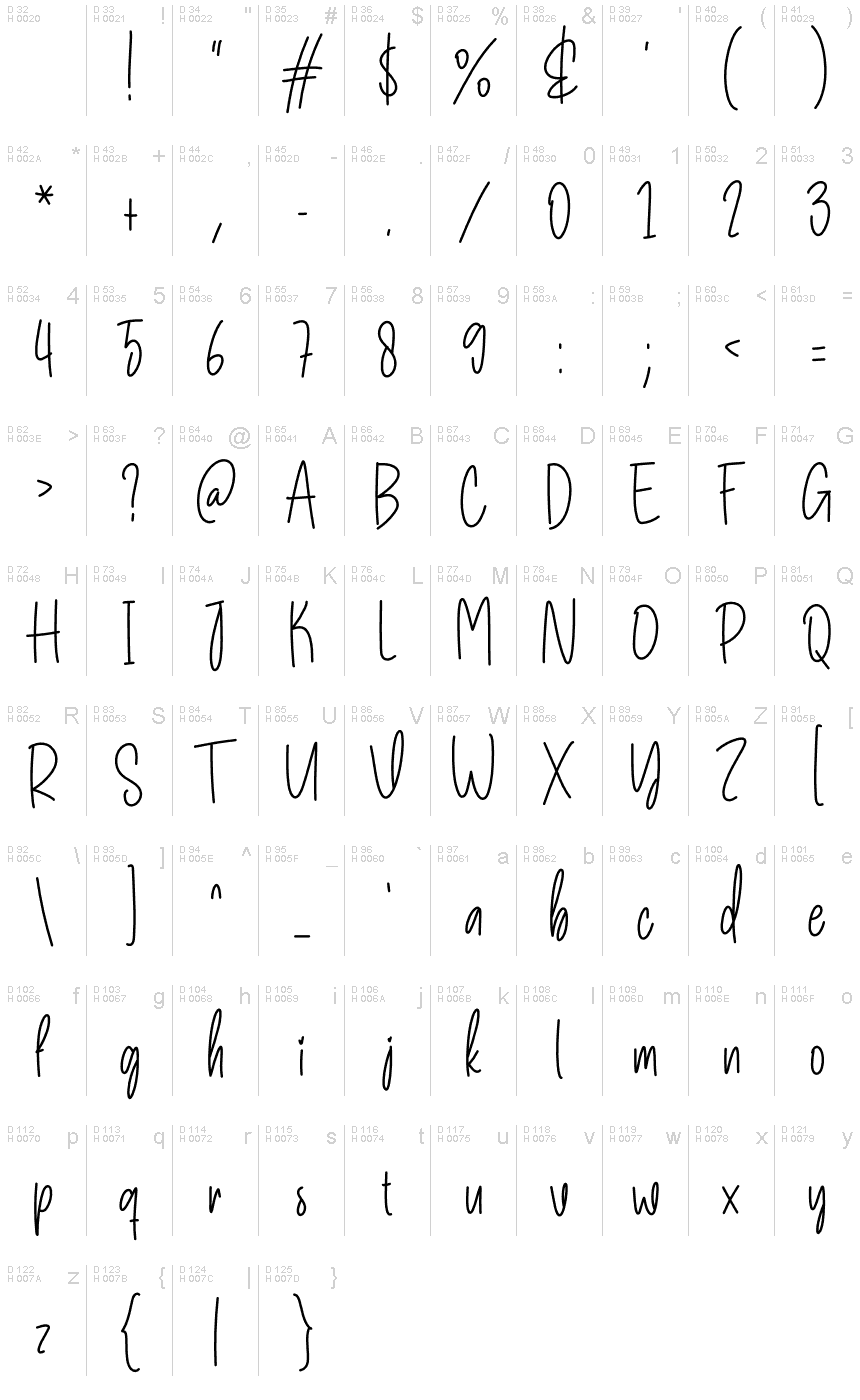
Starry Night
Starry Night, designed by Scratchones, captures the whimsical essence of a handwritten script with its delicate and extra-light strokes. This condensed font dances between elegance and playfulness, reminiscent of a personal note penned under a celestial sky. The fluidity of Starry Night's characters lends itself beautifully to projects that require an intimate touch, such as wedding invitations, greeting cards, or book covers where a touch of individuality is desired.
Its aesthetic appeal lies in the subtle irregularities akin to natural handwriting, combined with the grace of its elongated forms. The font's lean and gentle profile makes it an excellent choice for designers looking to infuse their work with a sense of warmth and authenticity without sacrificing sophistication.
With Starry Night's distinct style and appearance – airy yet impactful – creative possibilities abound. Whether it's branding for boutique businesses or crafting inspirational quotes for social media graphics, this font is versatile enough to elevate any design project with its unique blend of charm and refinement.